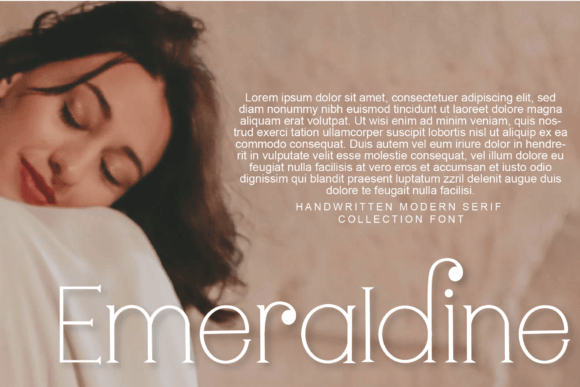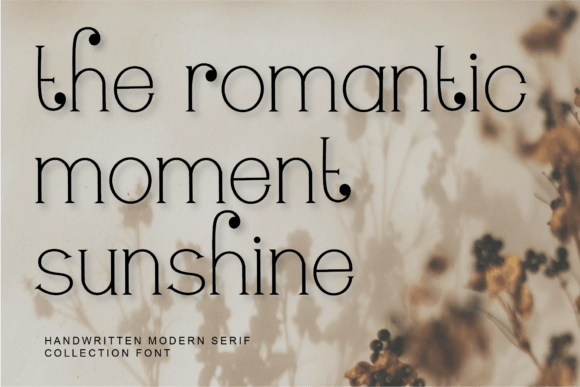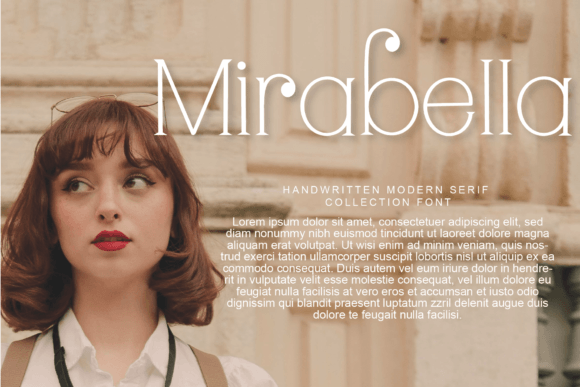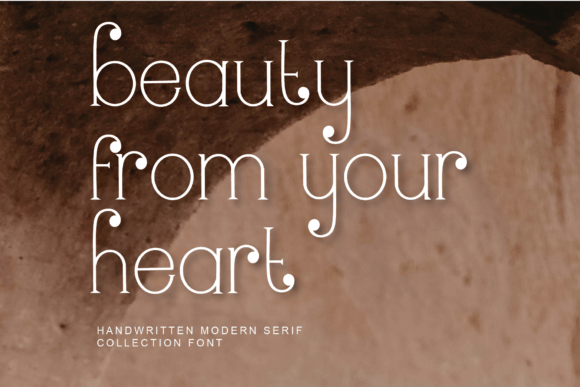
The Autography Font: A Timeless Choice for Creative Projects
I’ll never forget the moment I stumbled upon the Autography font. I was working on a wedding invitation project for a client, and I was struggling to find the perfect font that exuded elegance and sophistication. The client had a clear vision of what she wanted – a beautiful, feminine, and stylish font that would make her wedding invitations stand out. After hours of searching, I finally found Autography, and it was love at first sight! 💕
Autography is a serif font that has an incredibly versatile style, making it perfect for a wide range of creative projects, from gorgeous wedding invitations to beautiful stationery art, eye-catching social media posts, and much more! In this article, I’ll share my honest review of Autography, provide a practical guide on how to use it, and explore similar fonts that you might love.
My Honest Review of Autography
- ✨ Feminine and stylish: Autography has a unique, elegant feel that makes it perfect for projects that require a touch of sophistication.
- ✅ Versatile: This font is incredibly versatile and can be used for a wide range of projects, from wedding invitations to social media posts.
- 💕 Easy to read: Despite its elegant feel, Autography is surprisingly easy to read, making it perfect for body text and captions.
While Autography is an amazing font, there are a few quirks to be aware of: 🤔
- ⚠️ Limited use of all-caps: While Autography looks stunning in uppercase, it’s not the most readable font for long blocks of text in all-caps.
- ⚠️ Glyph limitations: Some users have reported that the font has limited glyphs, which can make it difficult to use for certain projects.
Autography is an OpenType font that offers a range of features and glyphs to enhance your design. Here are some tips for exploring these features:
- Stylistic alternates: Autography offers stylistic alternates that allow you to swap out certain characters for alternative designs.
- Glyphs: The font includes a range of glyphs, such as ligatures and ornaments, that can add visual interest to your design.
The Designer Inspiration Behind Autography
Autography was designed with the intention of creating a font that exudes elegance and sophistication. The designer drew inspiration from classic serif fonts, while adding a modern twist to create a unique and stylish feel. 💡
Q: What is Autography font?
A: Autography is a feminine and stylish serif font perfect for creative projects that require a touch of elegance.